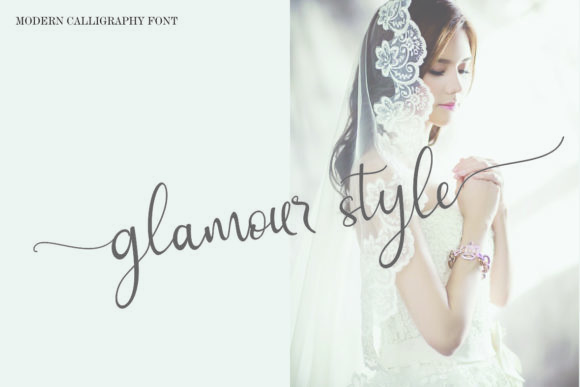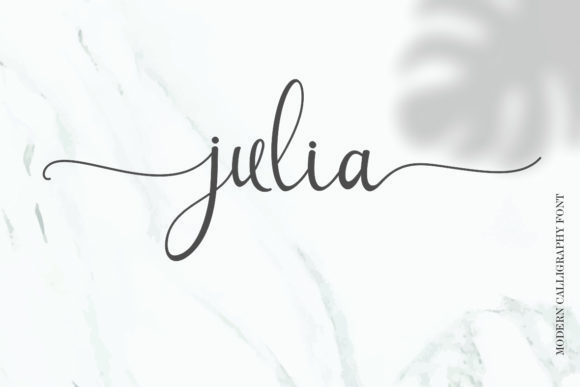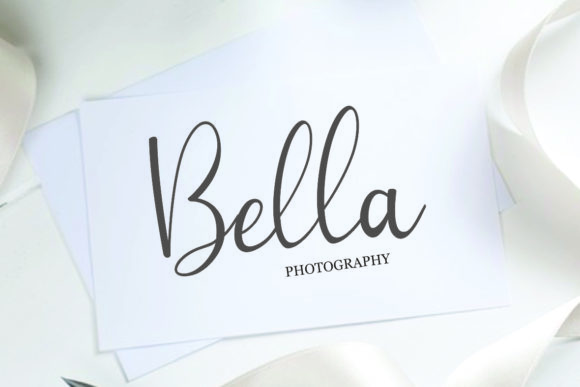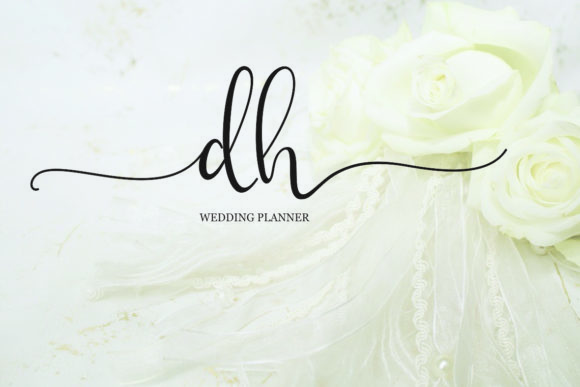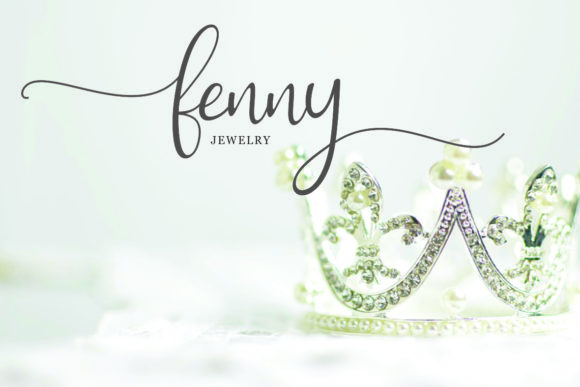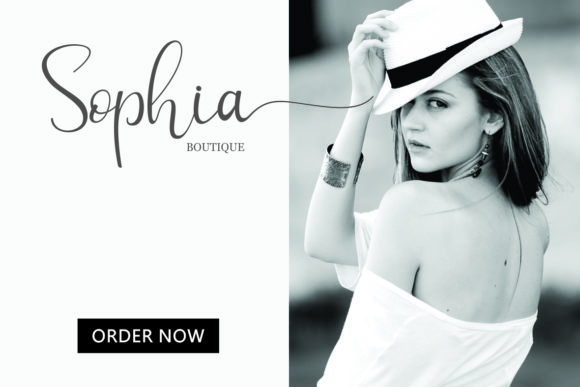
The Magic of Freya Font: Elevate Your Creative Projects with Elegance
I’ll never forget the time I was working on a branding project for a luxury wedding planner. I had spent hours pouring over design concepts, but something was missing – the perfect font. That’s when I stumbled upon Freya, a stunning and charming script font that effortlessly elevated the entire project. If you’re a designer, crafter, or creative hobbyist looking for a font that exudes elegance and sophistication, you’re in the right place!
An Honest Review of Freya Font
What I Love About Freya ✨
- 💫 Elegant and refined, perfect for high-end branding and luxury projects
- 🎨 Versatile and adaptable, suitable for a wide range of creative applications
- 🔥 Beautifully crafted with intricate details and swashes
- ⚠️ Some users may find the font a bit too ornate for certain projects
The Backstory of Freya Font
Freya was designed by a talented typographer who drew inspiration from classic calligraphy and elegant script fonts. The goal was to create a font that exudes sophistication and luxury, while still being approachable and versatile. The result is a stunning script font that’s perfect for a wide range of creative projects.
| Is Freya suitable for body text? | While Freya is a beautiful font, it’s best suited for headlines, titles, and short paragraphs. For body text, a more traditional font may be more suitable. |